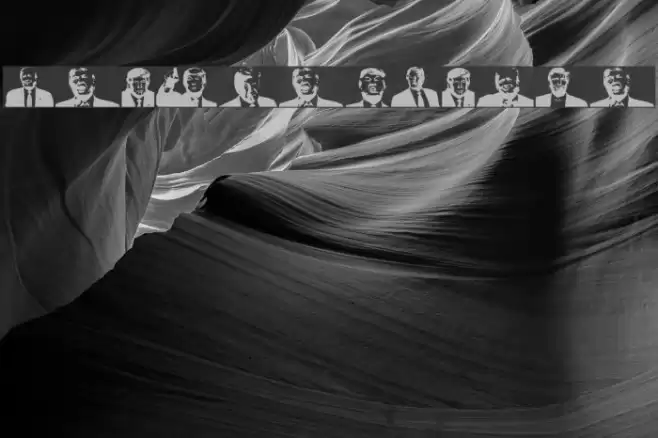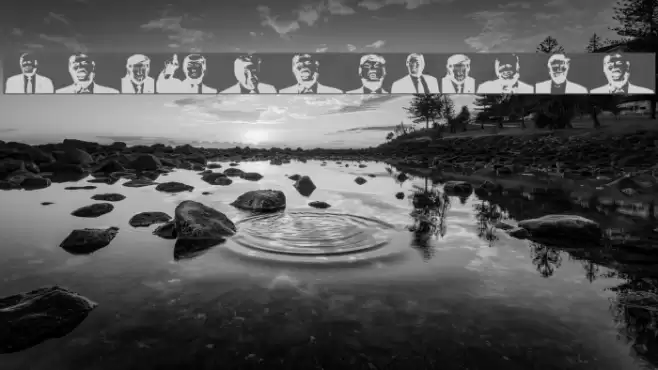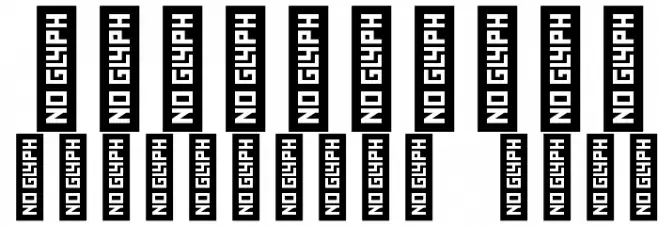
Trump-Regular Font
Trump-Regular Description
This is not a traditional font but rather a collection of black-and-white, high-contrast silhouette illustrations of a person in various poses, used in place of standard alphanumeric characters. The set includes uppercase and lowercase letters, as well as numbers and symbols, but all are represented by the same style of illustrated portrait rather than typographic glyphs. The numerals and symbols display a 'NO GLYPH' placeholder.
A pictorial, illustrative set of character glyphs using a single individual's silhouette from Dingbats fonts.
- Proposed Projects: Satirical artwork, editorial illustrations, protest posters, novelty designs, or themed graphic projects.
- Overall Style: Decorative, Satirical, Illustrative
- Use Case: Artwork, Posters, Themed Graphics, Editorial Design